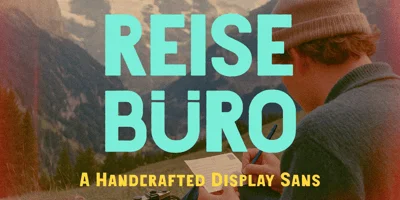
Reiseburo Display Font
Reiseburo Display Font is perfect for travel agency branding, tourism marketing campaigns, destination guides, airline communications, hotel signage, cruise line materials, adventure travel promotions, cultural tourism projects, travel magazine headlines, and wanderlust-inspiring applications that evoke the excitement and sophistication of global exploration.
What makes Reiseburo Display Font truly exciting is its authentic capture of European travel elegance and sophisticated wanderlust that instantly transports audiences to exotic destinations and cultural adventures. This exceptional typeface embodies the spirit of classic European travel agencies with its refined letterforms and cosmopolitan character that convey both adventure and luxury. The font's international sophistication and travel-inspired personality make it perfect for brands seeking to communicate worldly expertise, cultural appreciation, and the transformative power of authentic travel experiences.
The Reiseburo Display Font family includes multiple weights and styles: Light, Regular, Medium, Bold, and Condensed variations designed for maximum travel appeal. Each family member maintains the distinctive European travel character while offering flexibility for diverse tourism applications and international branding systems. The comprehensive character set supports multiple European languages and travel-specific design elements, making it suitable for global tourism communications.
When you choose Reiseburo Display Font, you're selecting a typography passport that opens doors to sophisticated travel communication and cultural exploration. This distinctive typeface excels in applications where wanderlust and cultural sophistication are essential, delivering exceptional visual appeal while maintaining international credibility. Whether you're designing travel brands, destination marketing, tourism campaigns, or cultural publications, this font provides the European elegance and travel authenticity that resonates with audiences who appreciate genuine cultural experiences and sophisticated exploration adventures.